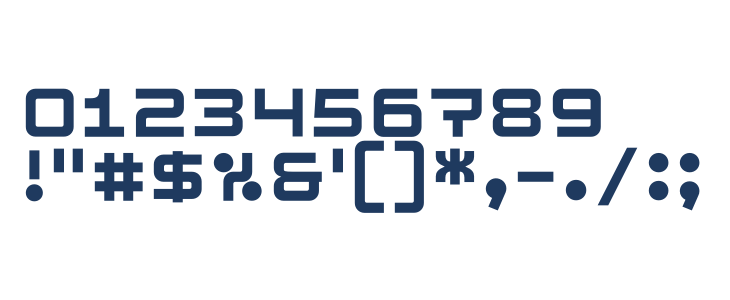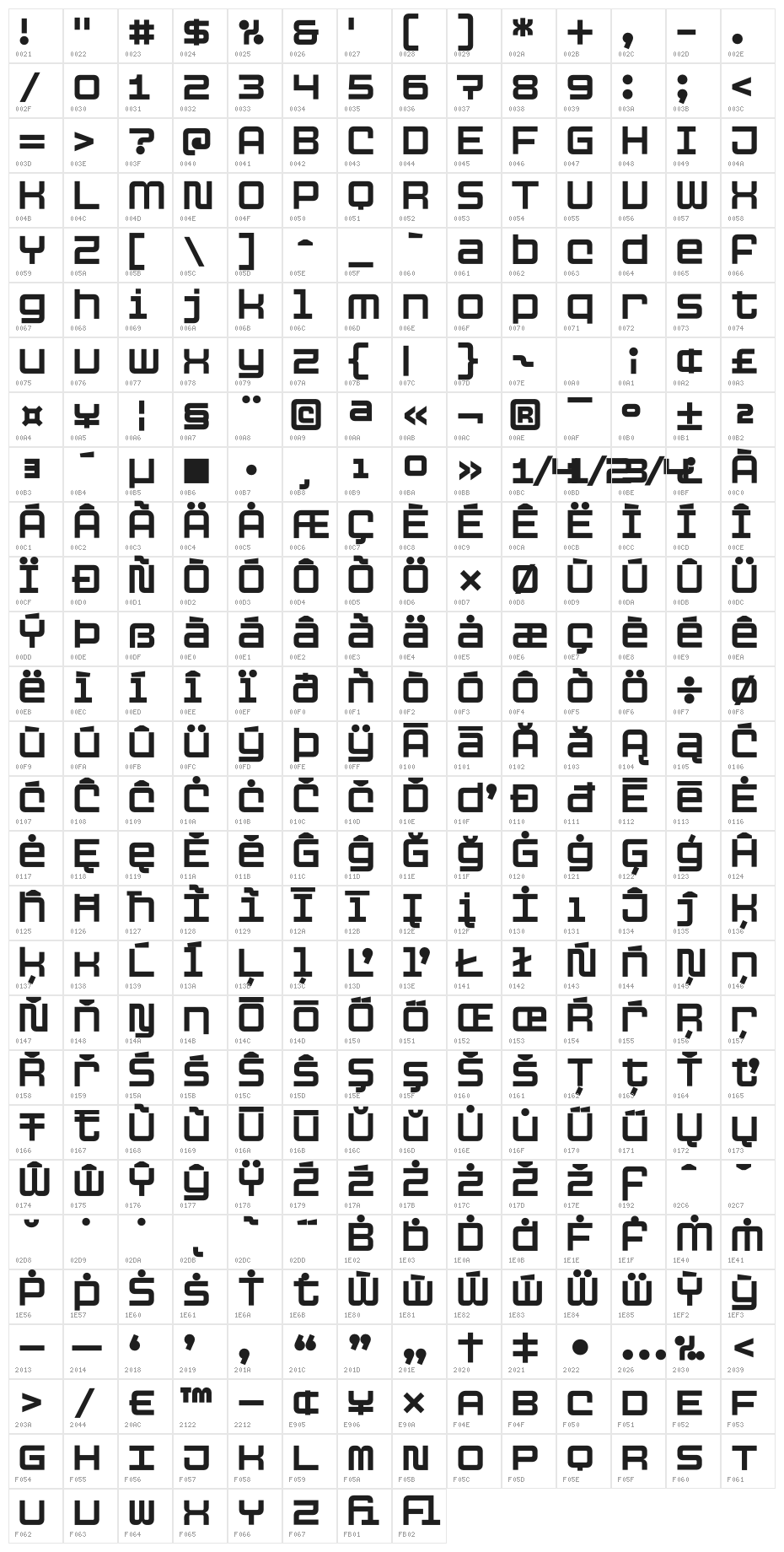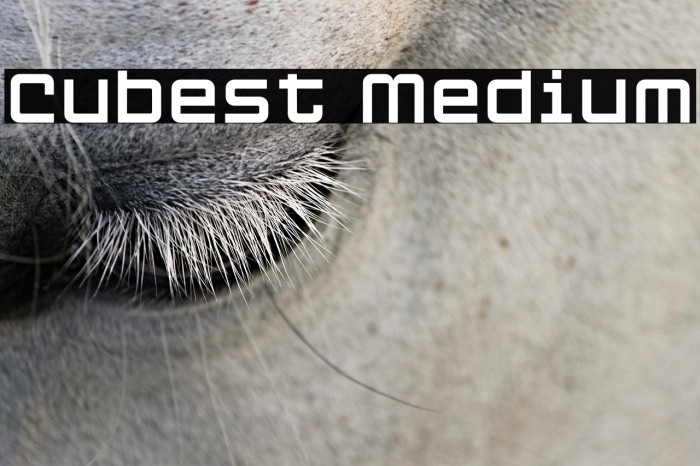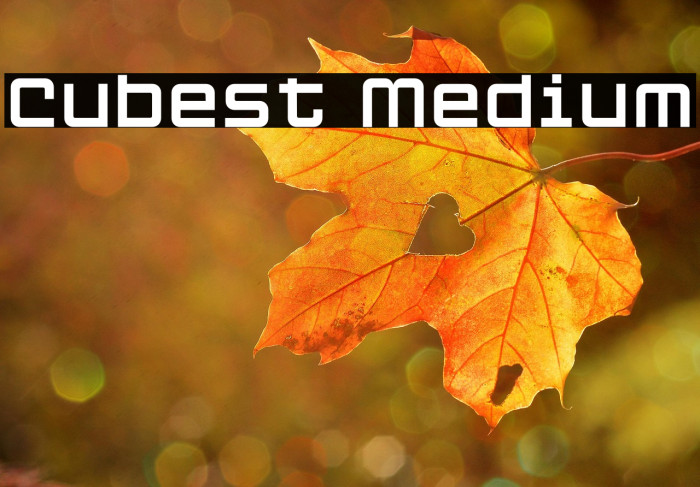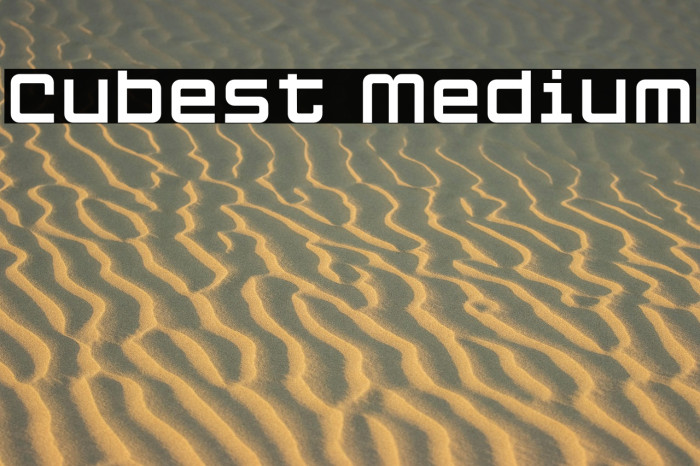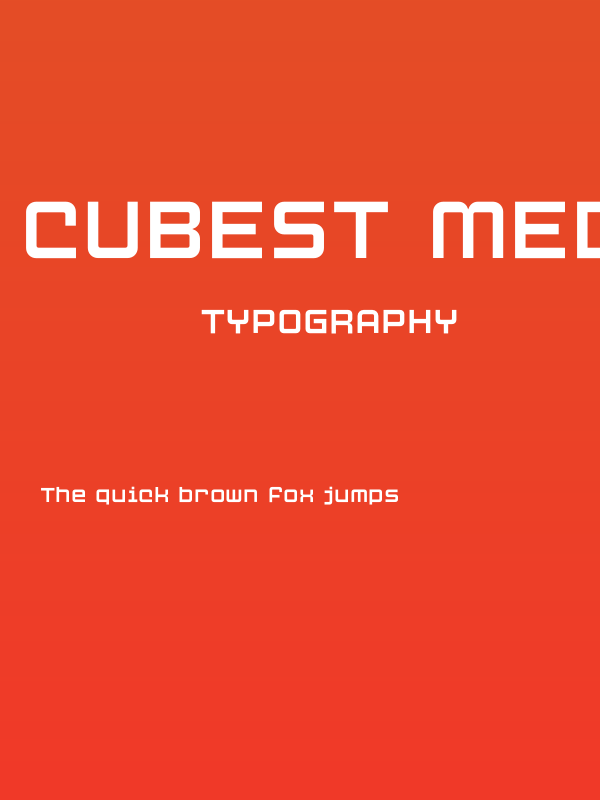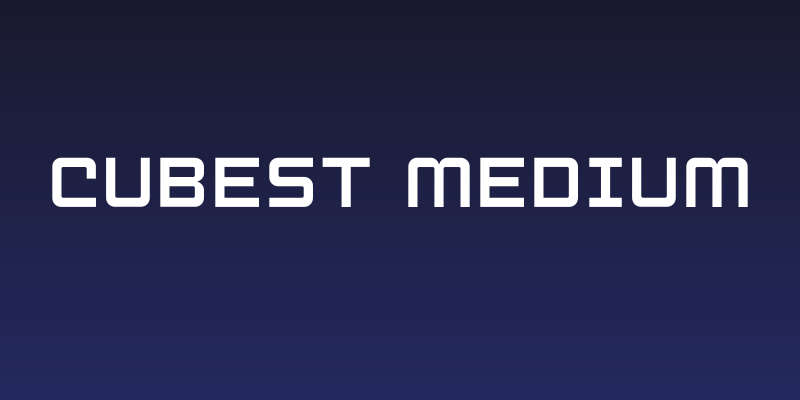
Cubest Medium Font
Cubest Medium Description
This font features a geometric and modern design with a strong, structured appearance. The characters are uniform in width, giving it a monospaced feel, yet they maintain a distinct, contemporary style. The edges are slightly rounded, softening the overall look while retaining a bold presence. The uppercase letters are particularly striking, with a blocky, futuristic aesthetic. The lowercase letters mirror this style, maintaining consistency across the typeface. Numbers and special characters are designed with the same attention to detail, ensuring a cohesive look throughout. This font is versatile, suitable for various digital and print applications where a modern and clean appearance is desired.